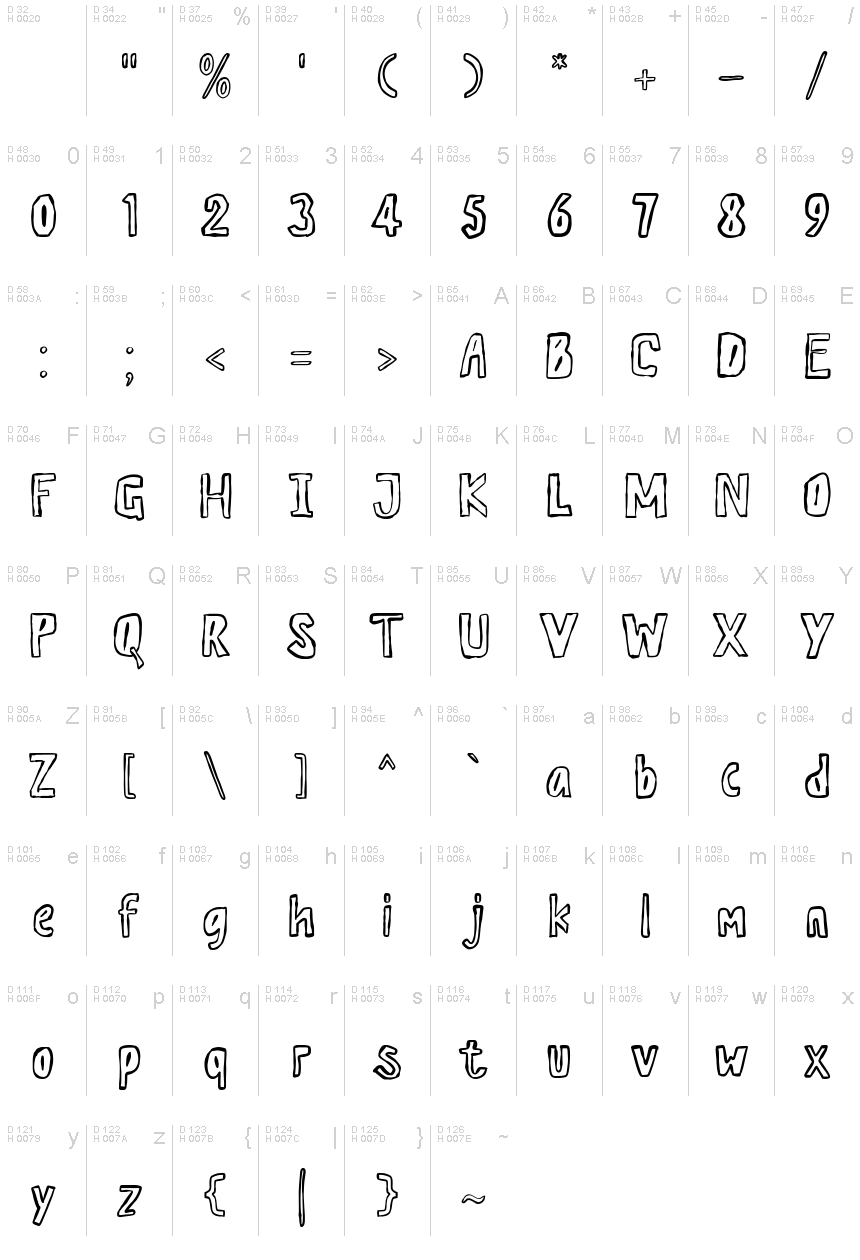
Stone Old - Demo
Stone Old, a captivating display font crafted by Tera Asset Garage, exudes a whimsical, cartoon-inspired aesthetic with its bold, outlined design. The font's striking strokes and playful curves create a sense of movement and energy, inviting the viewer to explore its unique personality. Its distinct character adds a touch of playfulness and charm, making it an ideal choice for projects seeking to capture a lighthearted, expressive tone.
The font's versatility lends itself to a wide range of applications, from vibrant logo designs and attention-grabbing headlines to charming branding elements and eye-catching advertising. Its bold, outlined style makes it particularly well-suited for use in digital and print media, where it can effortlessly grab the audience's attention and leave a lasting impression.